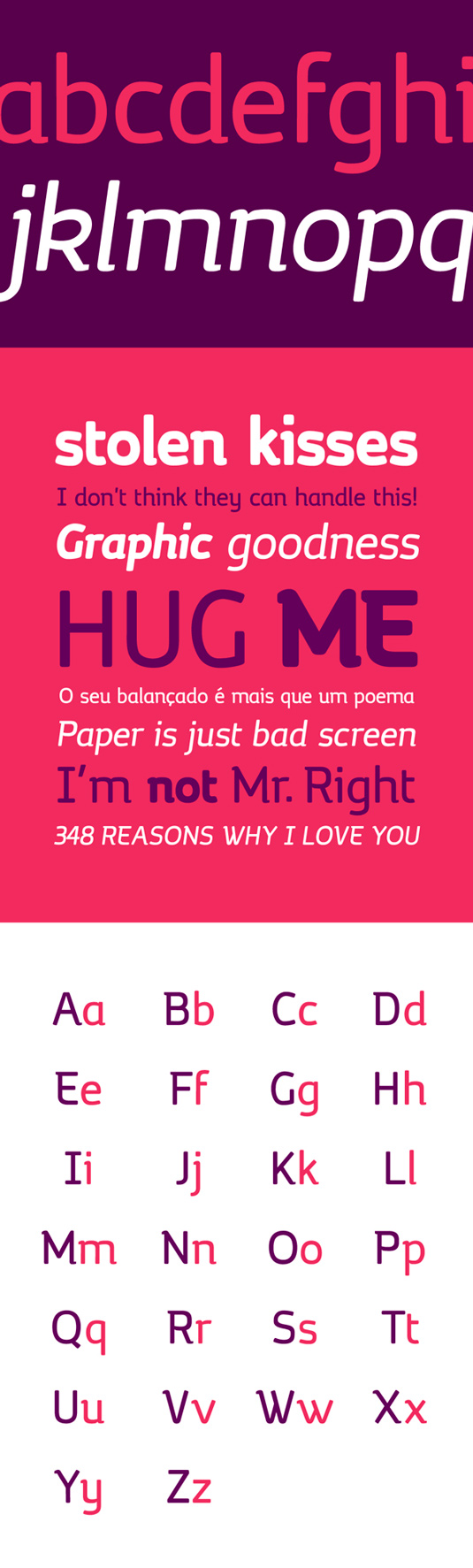
Font of the day: Margot
Every day we showcase the best fonts on the web. Today it's Margot by Adrià Gómez.
Margot by Adrià Gómez
Design student Adrià Gómez is the man behind today's font of choice Margot. "Margot is an adoring typefamily designed and optimized for its use in large sizes," Gómez comments. "Margot is vibrant, cheerful, perfectly suited for a great variety of typographical purposes."